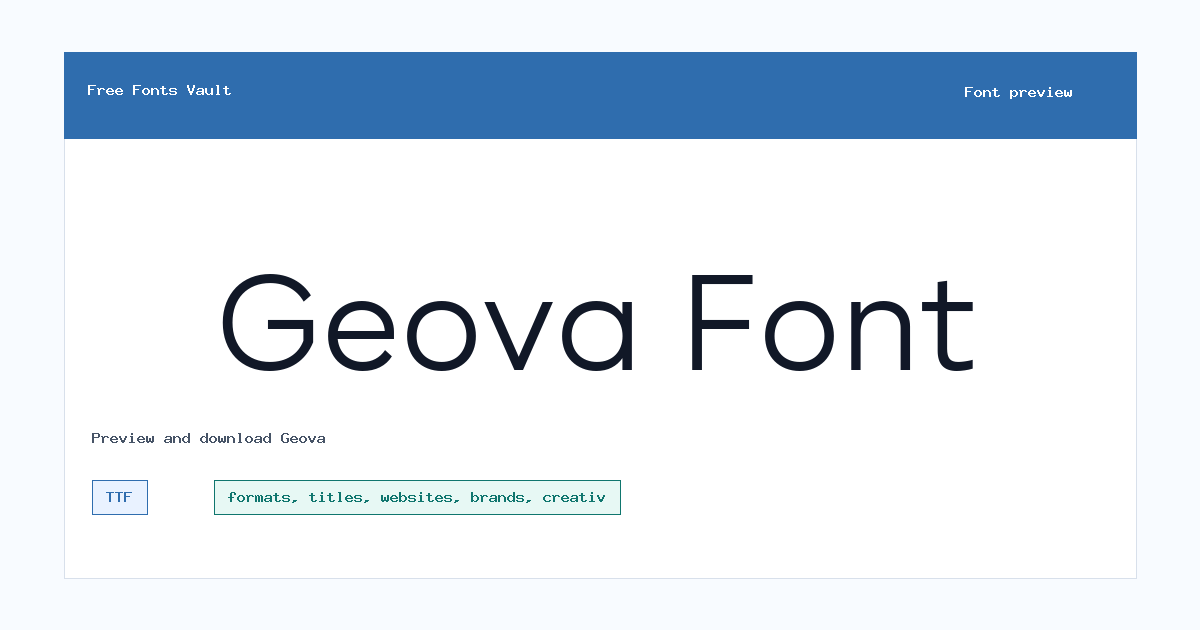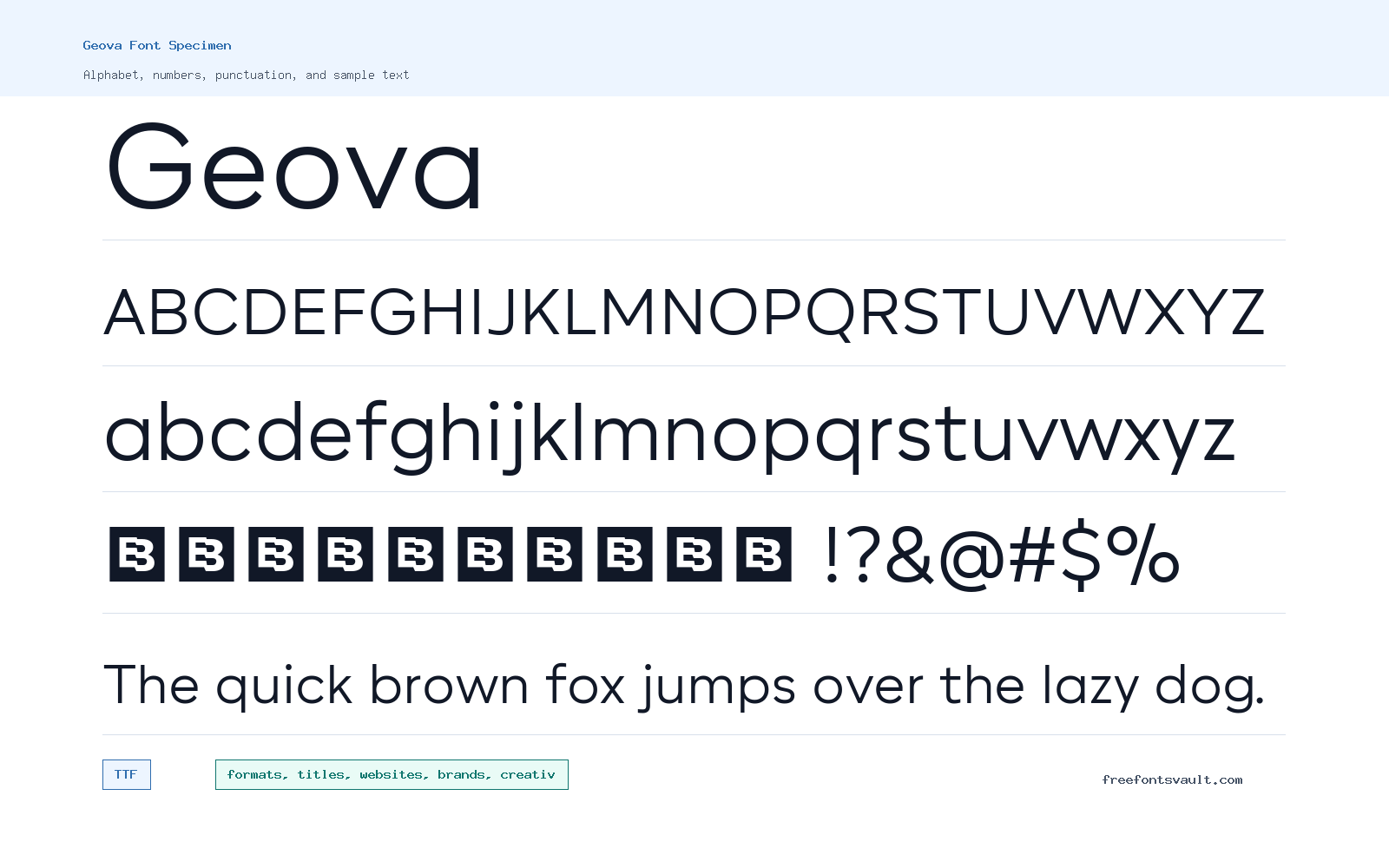
Geova
- Designer Eko Bimantara
Geova font.
Geova is a geometric sans serif font family by Eko Bimantara. The trial download gives you several upright weights, making it useful for testing clean headings, website text, packaging mockups, and brand-style layouts before buying a license.
About Geova Font
Geova has a geometric structure with softer, more human proportions, so it does not feel as rigid as some technical sans serif fonts. Its clean letter shapes work well when you need a modern sans that can handle both display text and shorter reading sections. The available trial files cover Thin, Light, Regular, Medium, SemiBold, Bold, ExtraBold, and Black in TTF format, giving you room to compare light, neutral, and heavy settings in the preview tool.
Use the lighter weights for airy headlines, minimal posters, or spacious website sections. Regular and Medium are better starting points for short paragraphs, labels, and interface-style text. The heavier weights are stronger for titles, product names, packaging concepts, and social graphics. For long body copy, test line spacing and size carefully, especially if you plan to use the thinnest or heaviest styles.
- Geometric sans serif design with a clean, contemporary feel
- Useful weight range for testing headings, short text, and brand-style mockups
- Website headers and landing page text
- Packaging concepts and product labels
- Brand identity drafts and wordmark testing
- Posters, social graphics, and presentation titles
- Short editorial sections where a clean sans serif is needed
Geova was designed and published by Eko Bimantara.
Who designed Geova?
Geova was designed by Eko Bimantara.
What is Geova best used for?
Geova works well for clean headlines, website sections, product packaging concepts, brand mockups, posters, and short text settings. Test smaller sizes carefully before using it for longer reading text.